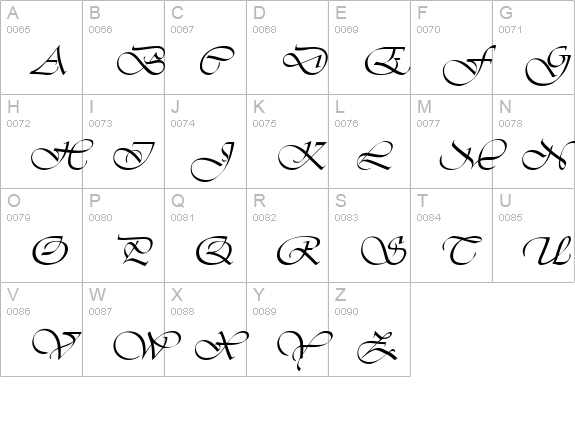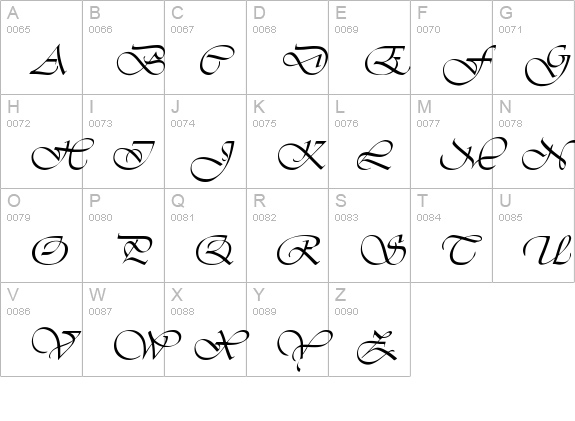
Vivaldi ICG Font Details
Vivaldi ICG font is a stunning and elegant typeface that exudes sophistication and timelessness. Its delicate and graceful letterforms make it perfect for projects that require a touch of refinement and classic beauty. With its flowing strokes and intricate details, Vivaldi ICG captures the essence of handwritten calligraphy, adding a sense of artistry and charm to any design. This font's versatility is unparalleled, allowing it to be used in a wide range of applications, from wedding invitations and formal announcements to branding materials and editorial designs. Whether you're looking to create a luxurious and high-end aesthetic or simply want to add a touch of elegance to your work, Vivaldi ICG font is the ideal choice. What makes Vivaldi ICG font even more appealing is the fact that it is available for free download at FontsMarket.com. This means that you can easily access this exquisite typeface without any cost, making it a valuable resource for designers, artists, and enthusiasts alike. By offering Vivaldi ICG as a free font, FontsMarket.com allows everyone to experience the beauty and versatility of this timeless typeface. So, if you're in search of a font that combines elegance, sophistication, and accessibility, look no further than Vivaldi ICG font. Download it for free at FontsMarket.com and elevate your designs to new levels of beauty and refinement.